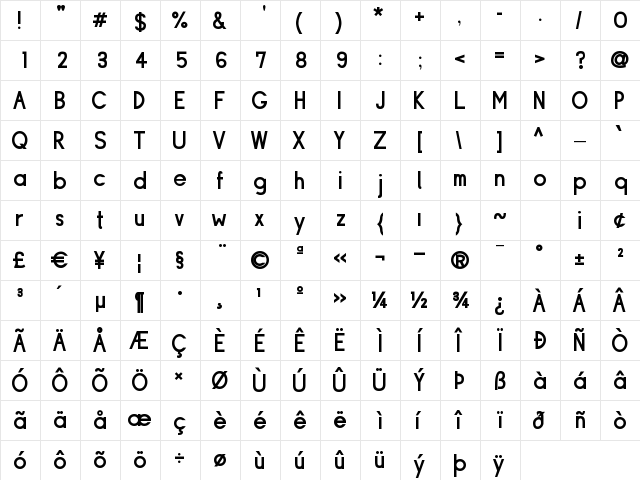
Siple DemiBold
Design Context for Siple Typeface
Siple takes a measured approach to typography — its balanced proportions and neutral character make it a reliable workhorse for both digital and print work. Its bold stroke weight gives it real presence on the page.